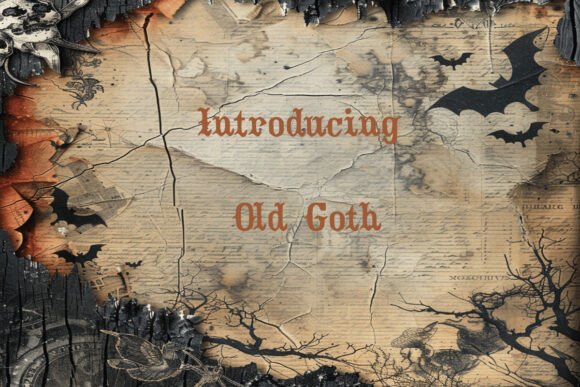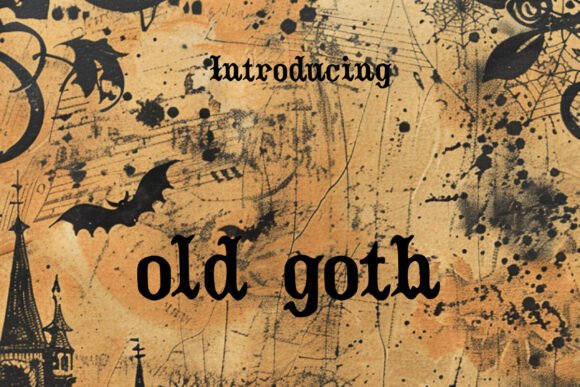
Old Goth Font: Vintage Display Font for Spooky DIY & Cricut Crafts
About the Old Goth Font
Make a bold statement with Old Goth Font, a powerful and memorable font. Unveil the bewitching elegance of Old Goth, your go-to display font. This striking typeface – an ideal blend of the old-world charm and contemporary precision – lends itself perfectly to the realms of advertising, headings, and blog content. Its distinctive character also makes it a prime choice for logos, nurturing unique brand identities with ease. Oozing sophistication, Old Goth brings a touch of timeless allure to prints and greeting cards, making every message memorable. Embrace the mesmerizing power of Old Goth, and let your communication resonate with its charismatic style.
Old Goth Font Usage Examples
Old Goth Font Example